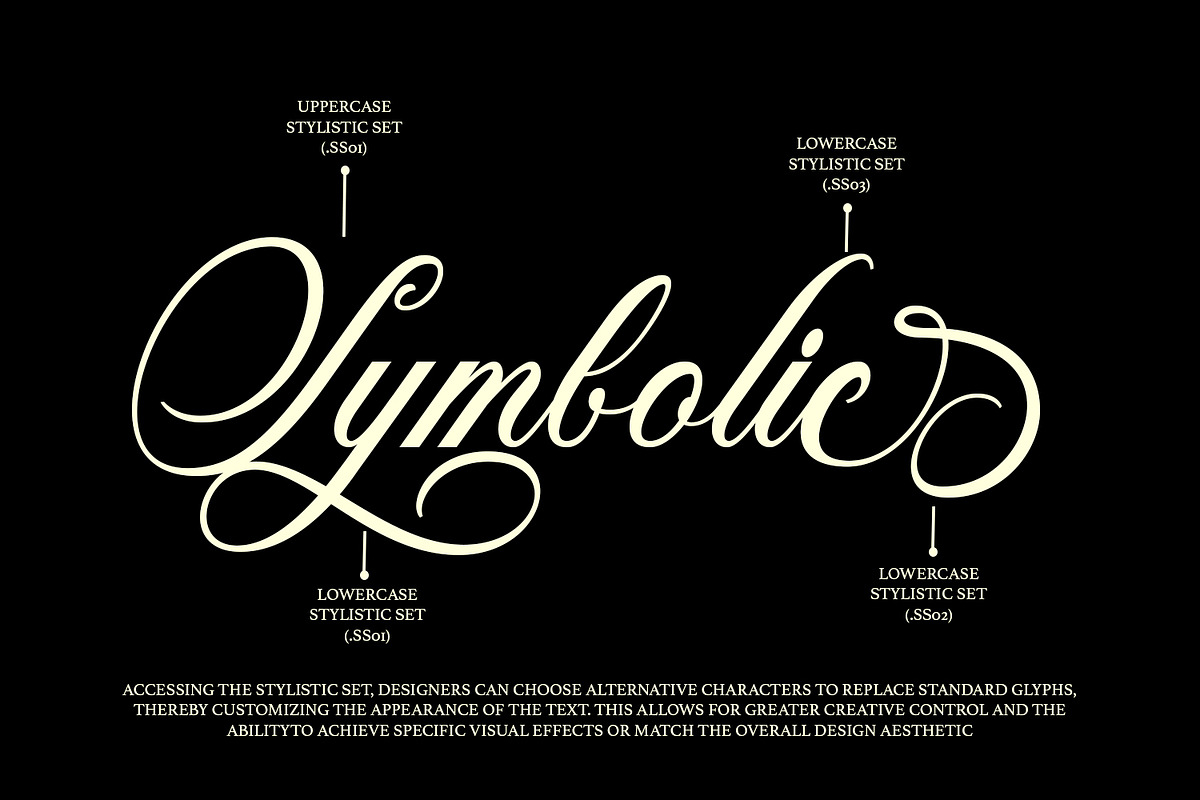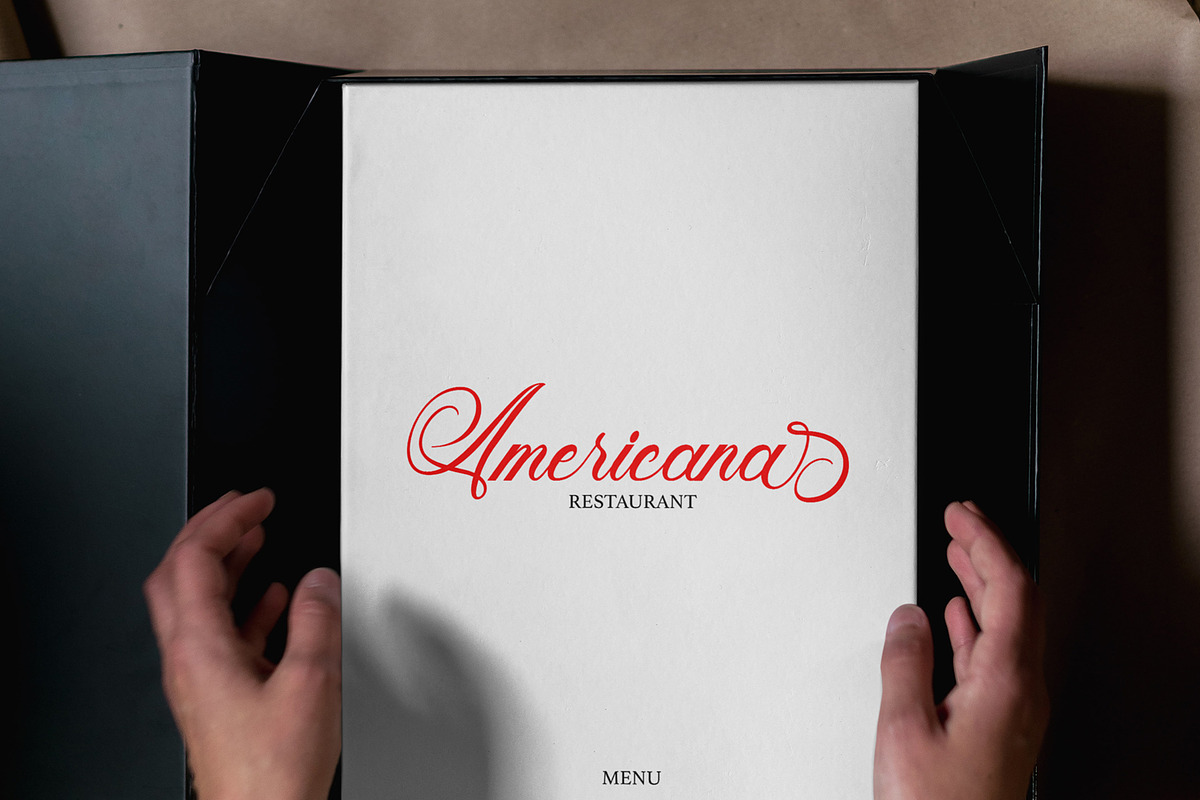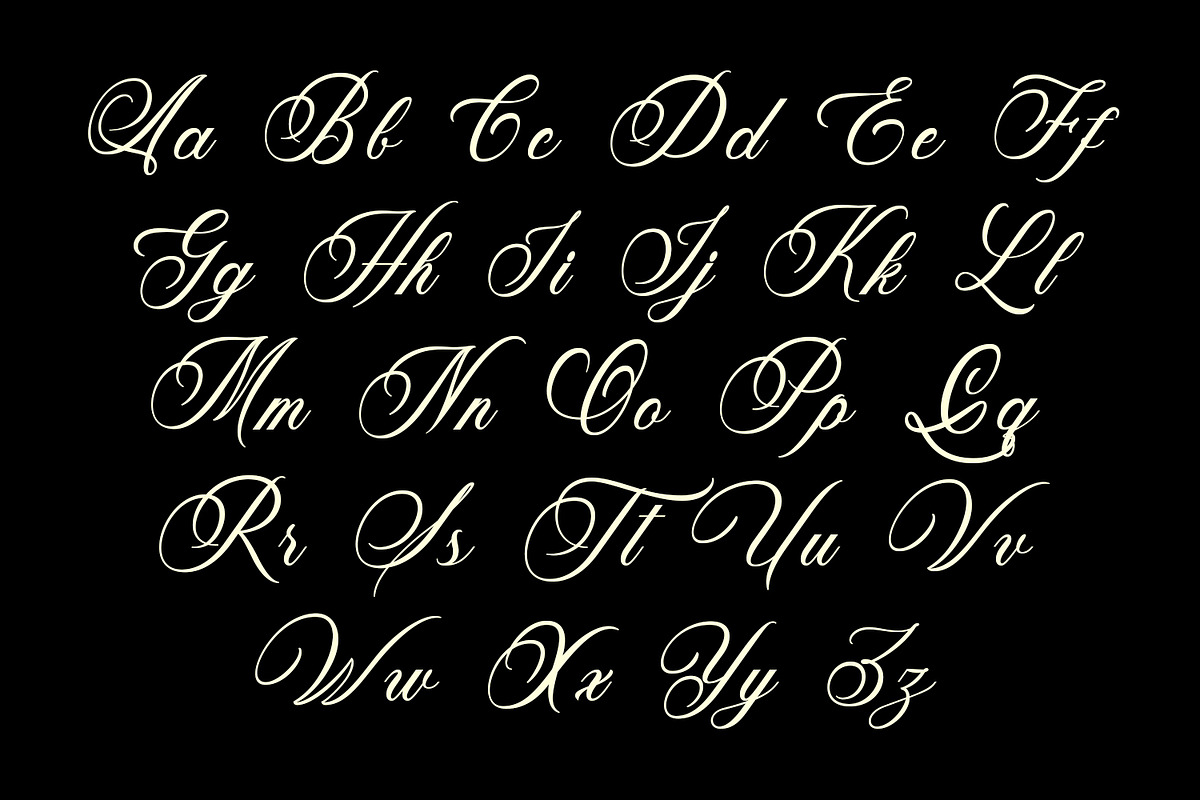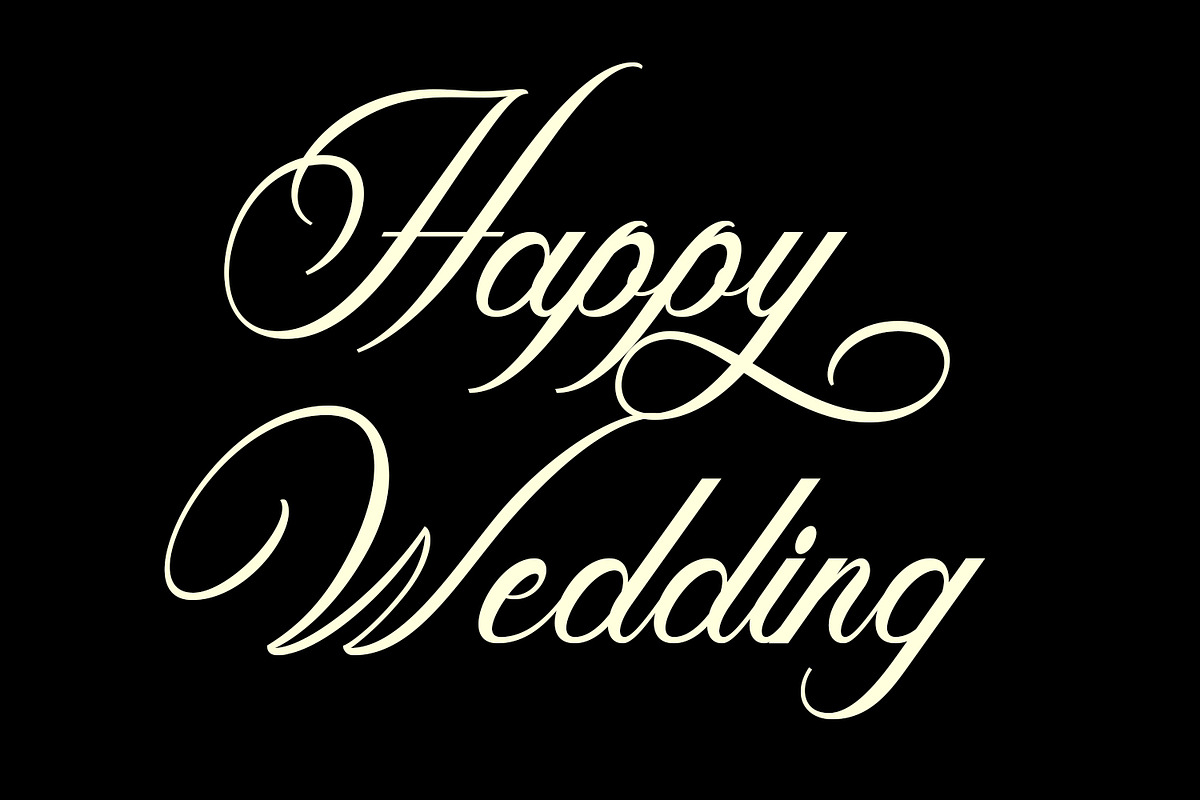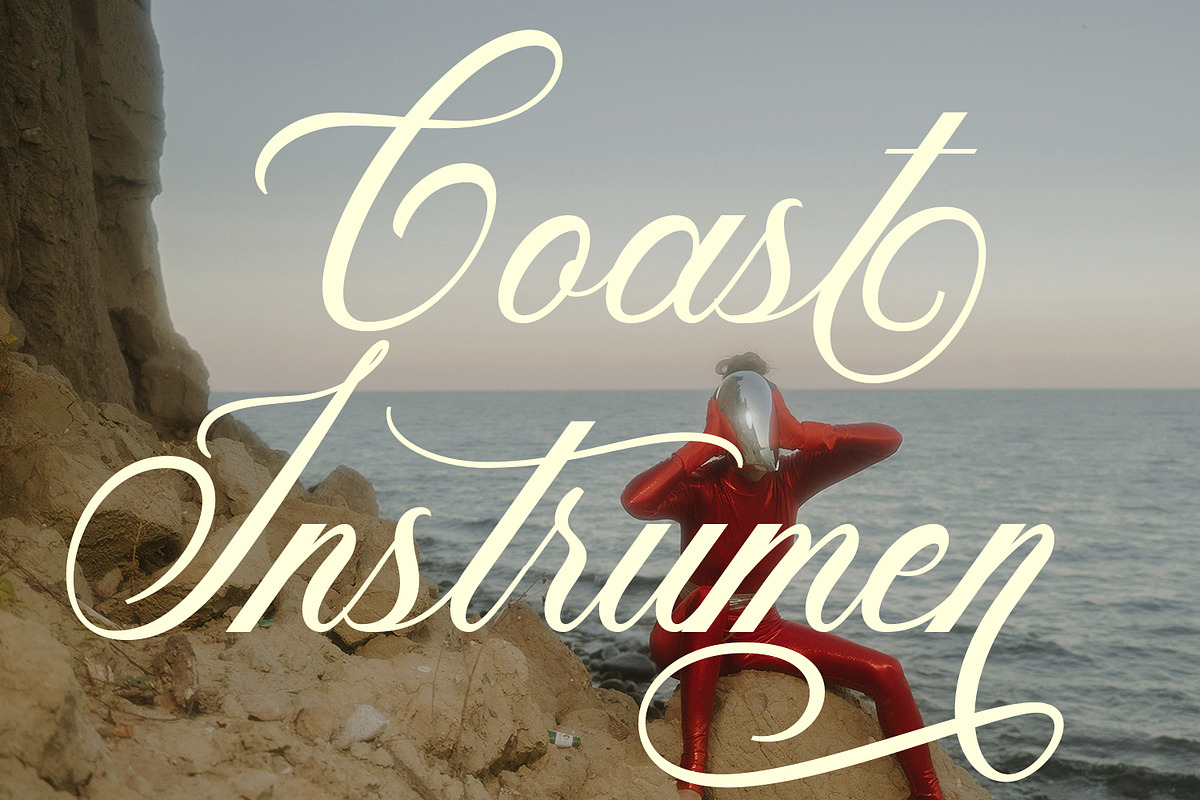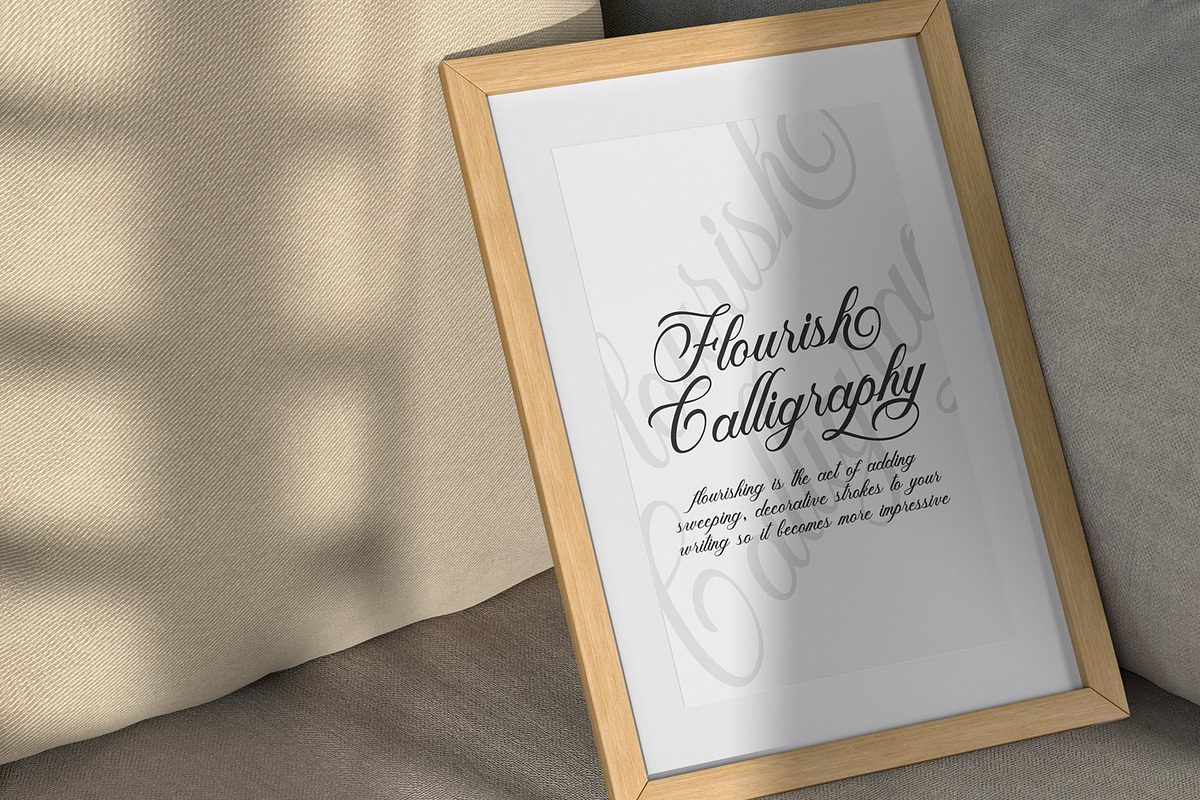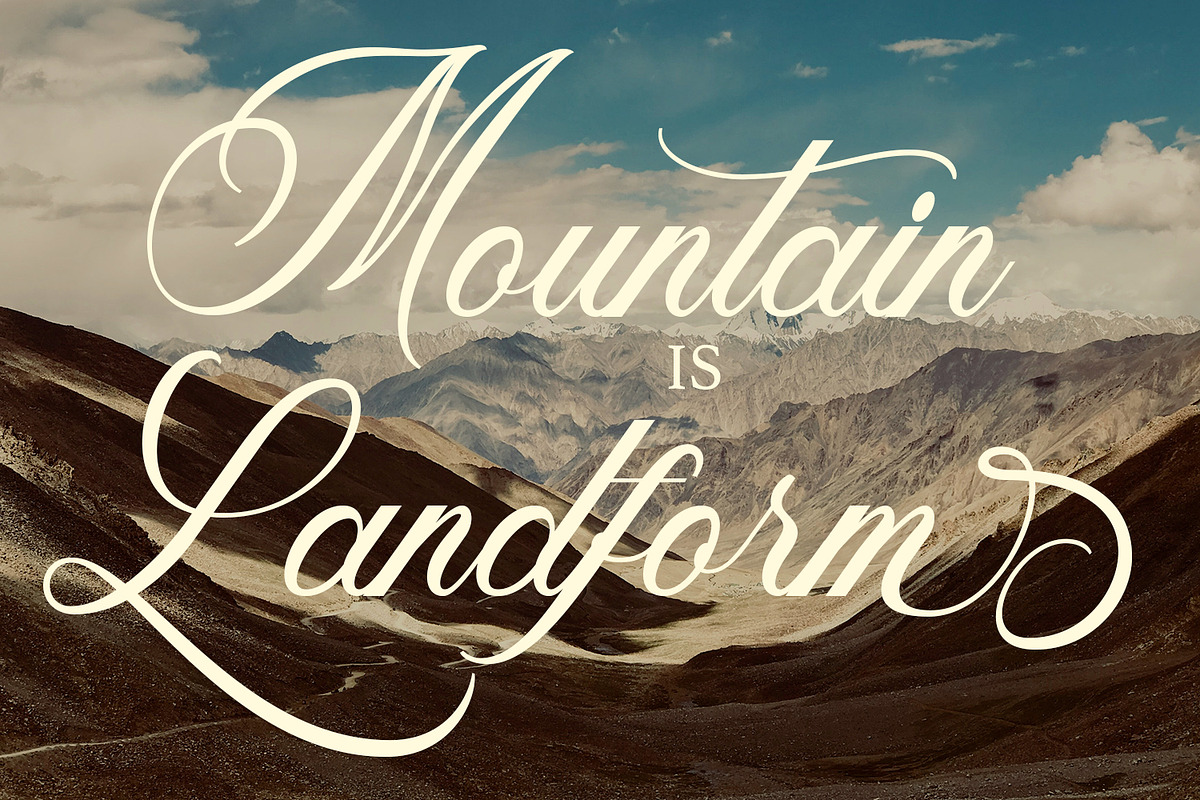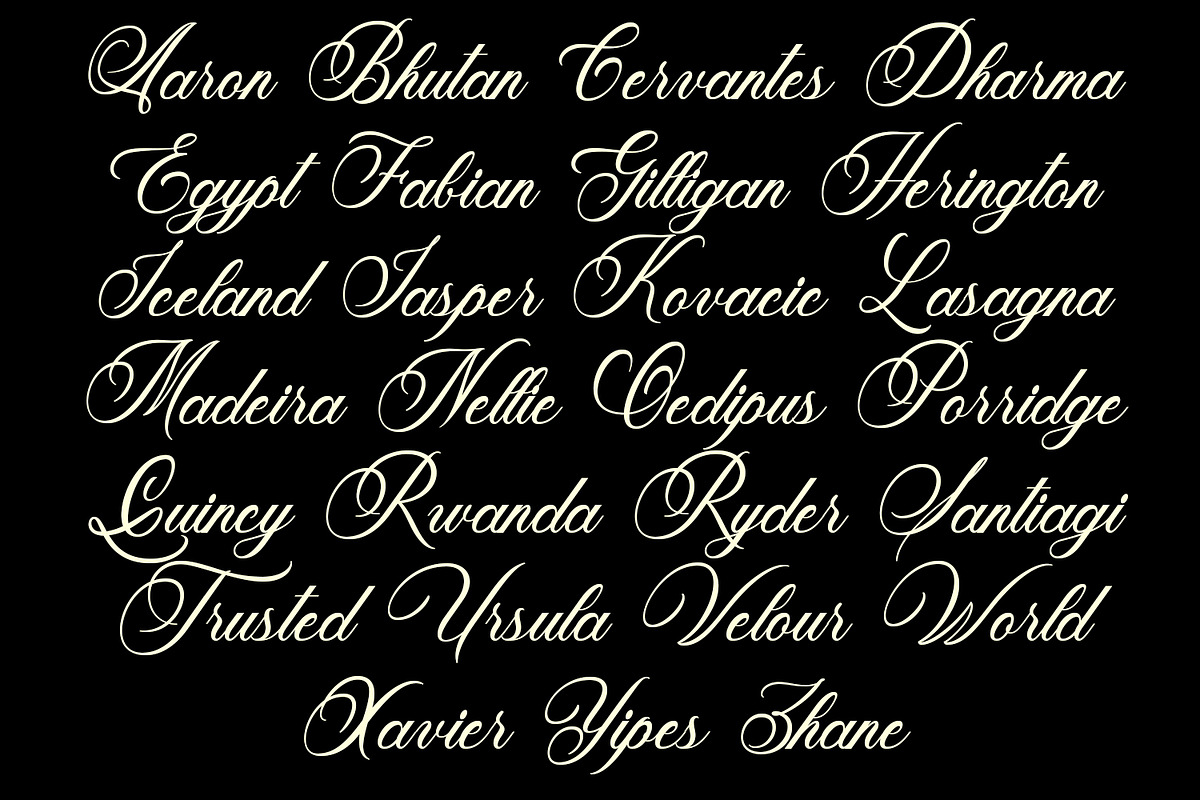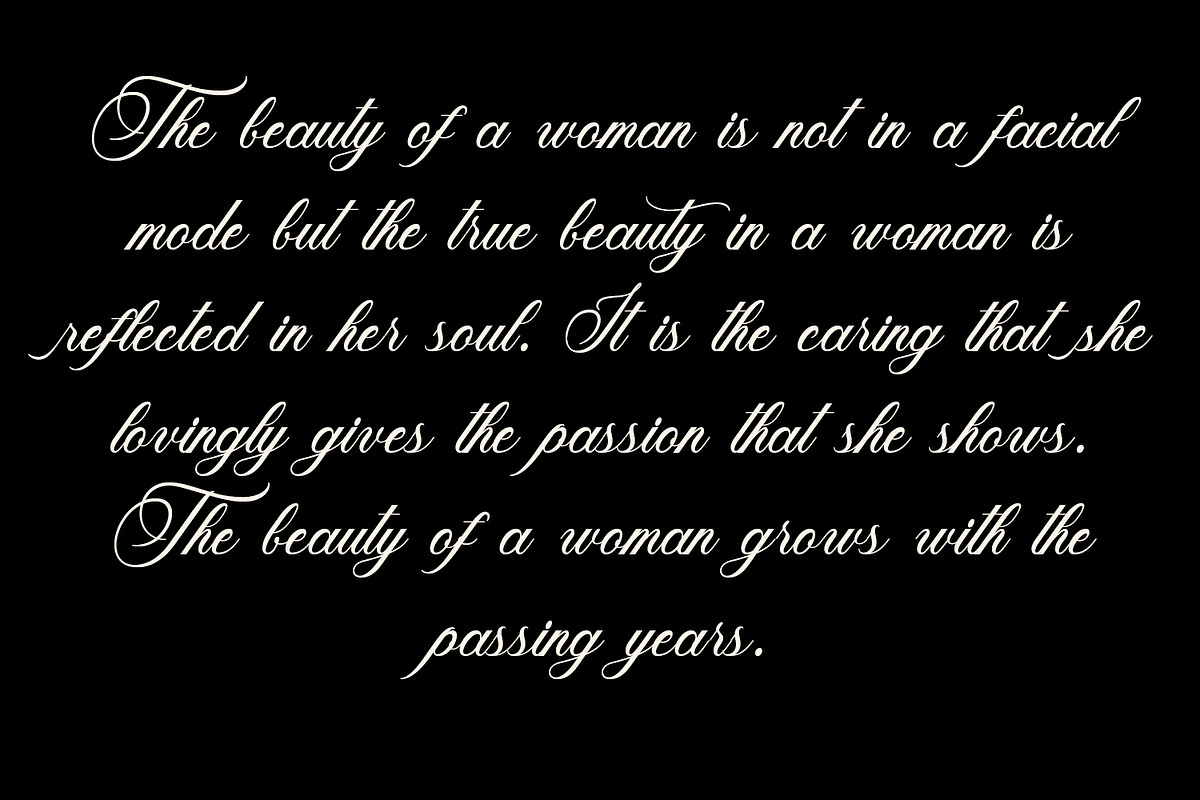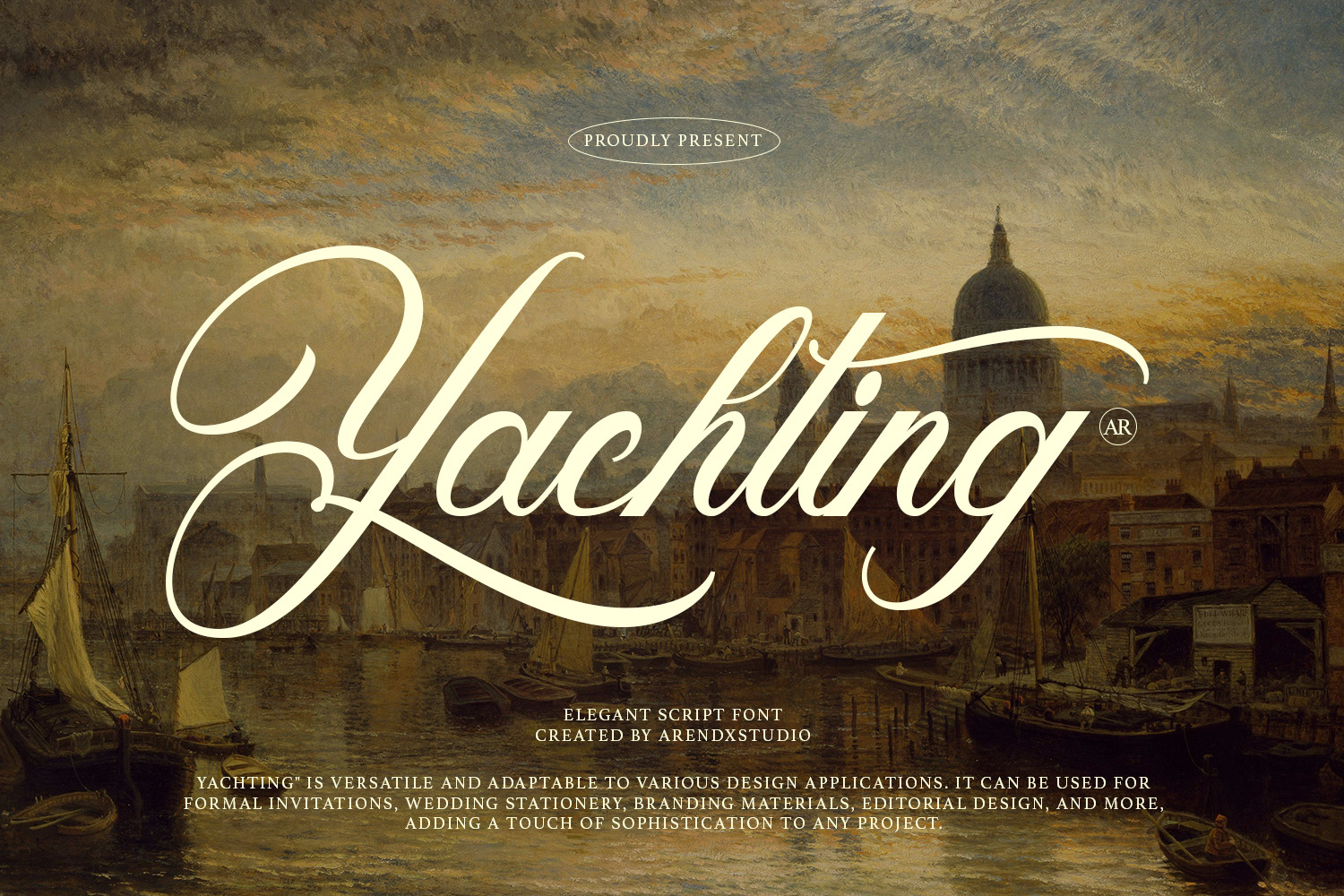
Yachting - Script Font
"Yachting" elegant script font embodies sophistication and luxury in its design, making it a perfect choice for upscale design projects. Here's an explanation of its key features:
Graceful Letterforms: "Yachting" features gracefully flowing letterforms with smooth curves and elegant flourishes. Each character is meticulously crafted to exude a sense of refinement and sophistication.
Fine Details: This font incorporates fine details such as delicate swashes and intricate ligatures, adding a touch of luxury to the typography. These embellishments enhance the overall aesthetic appeal and elevate its elegance.
High Contrast: "Yachting" showcases high contrast between thick and thin strokes, creating a sense of dynamism and visual interest. This contrast adds depth and dimension to the letterforms, enhancing its elegance.
Readability: Despite its ornate design, "Yachting" prioritizes readability to ensure that text remains legible even at smaller sizes. Each character is carefully crafted to maintain clarity and readability while preserving its elegant appearance.
Versatility: "Yachting" is versatile and adaptable to various design applications. It can be used for formal invitations, wedding stationery, branding materials, editorial design, and more, adding a touch of sophistication to any project.
Timeless Appeal: With its classic elegance and timeless quality, "Yachting" transcends trends and fads. Its sophisticated design ensures that it remains stylish and relevant for years to come, making it a reliable choice for elegant design projects.
Overall, the "Yachting" elegant script font combines graceful letterforms, fine details, high contrast, readability, versatility, and timeless appeal to create a sophisticated and refined typographic experience. It adds a sense of luxury and elegance to any design project, elevating its visual impact and leaving a lasting impression on viewers.